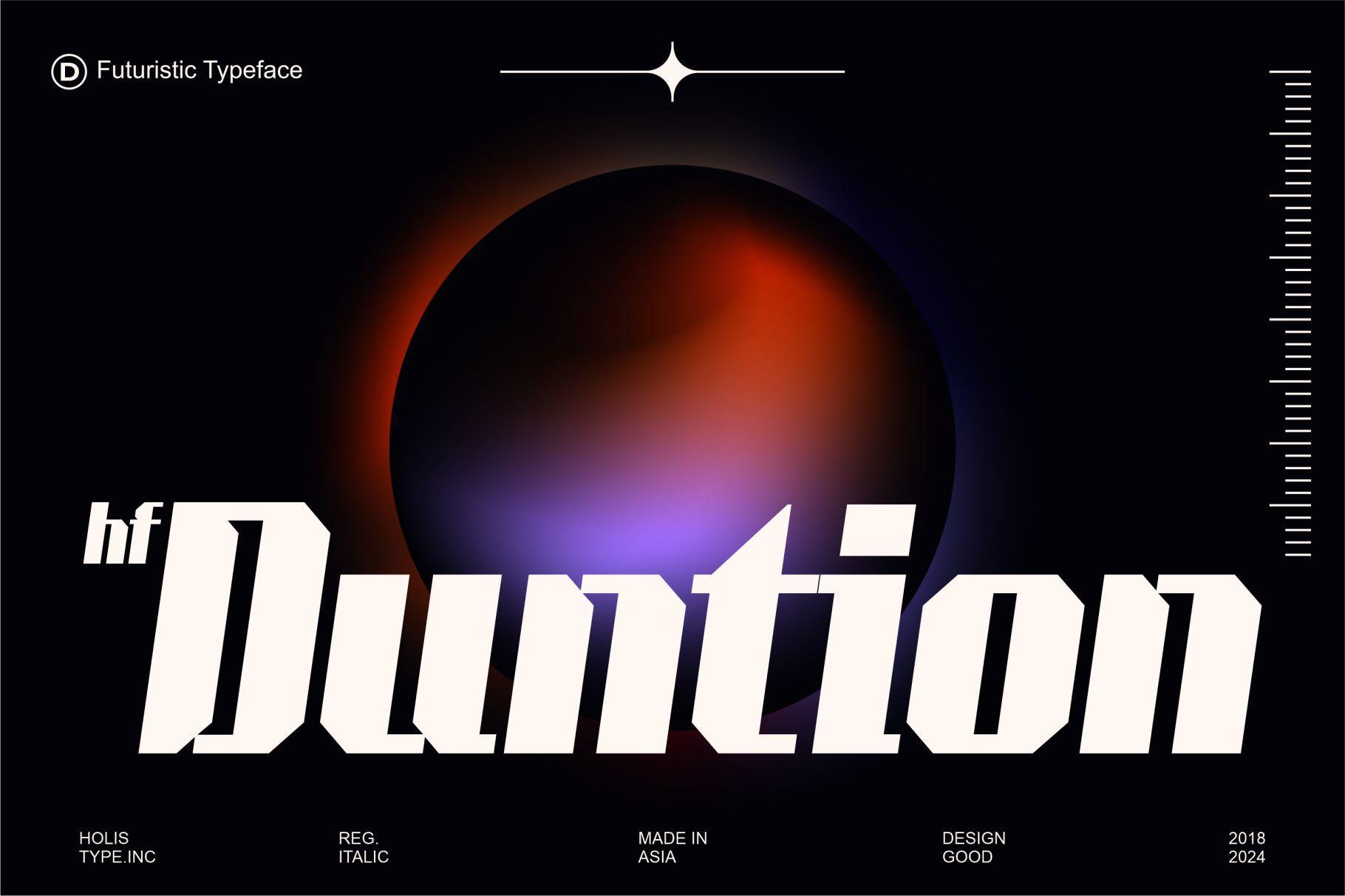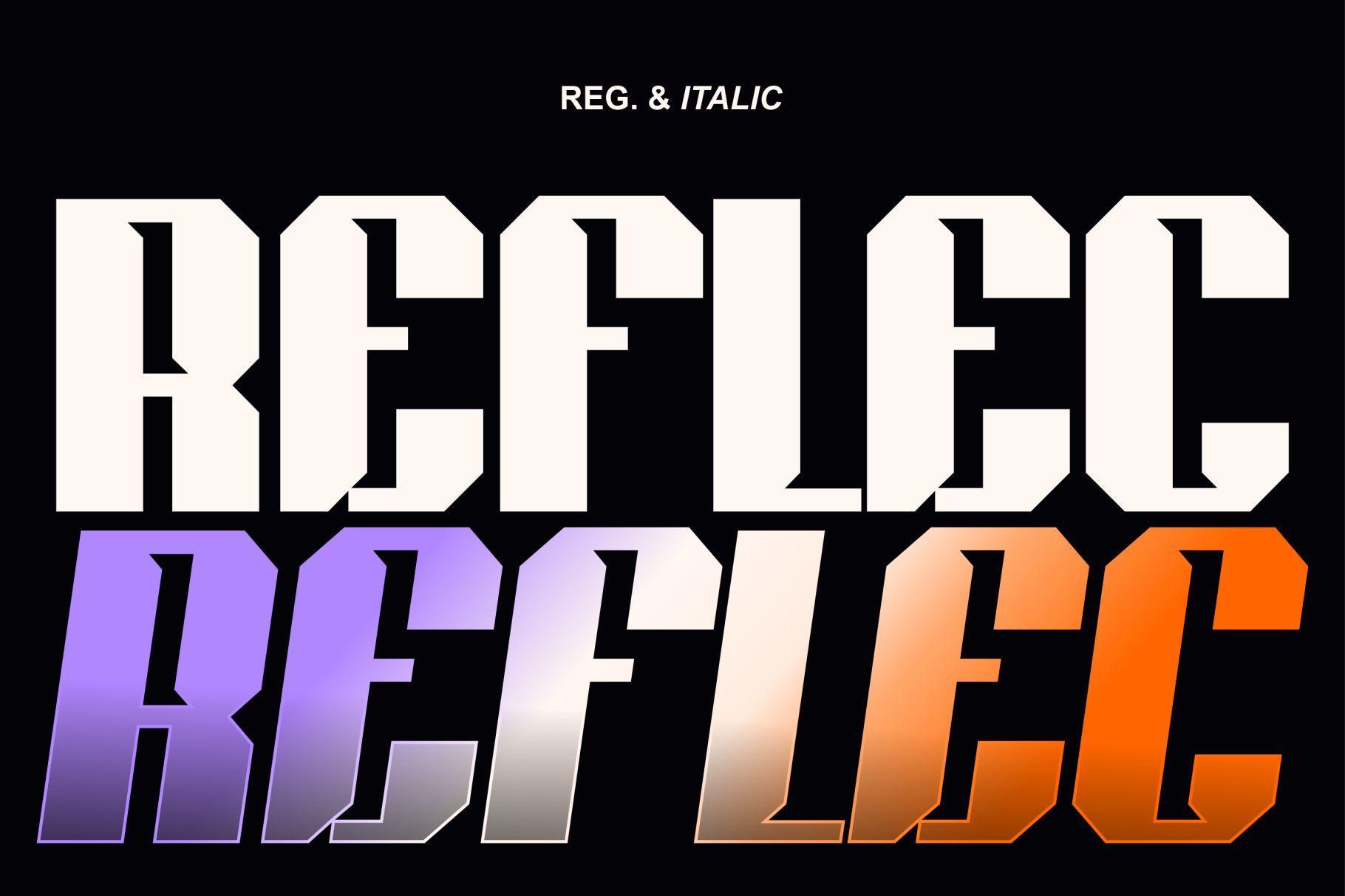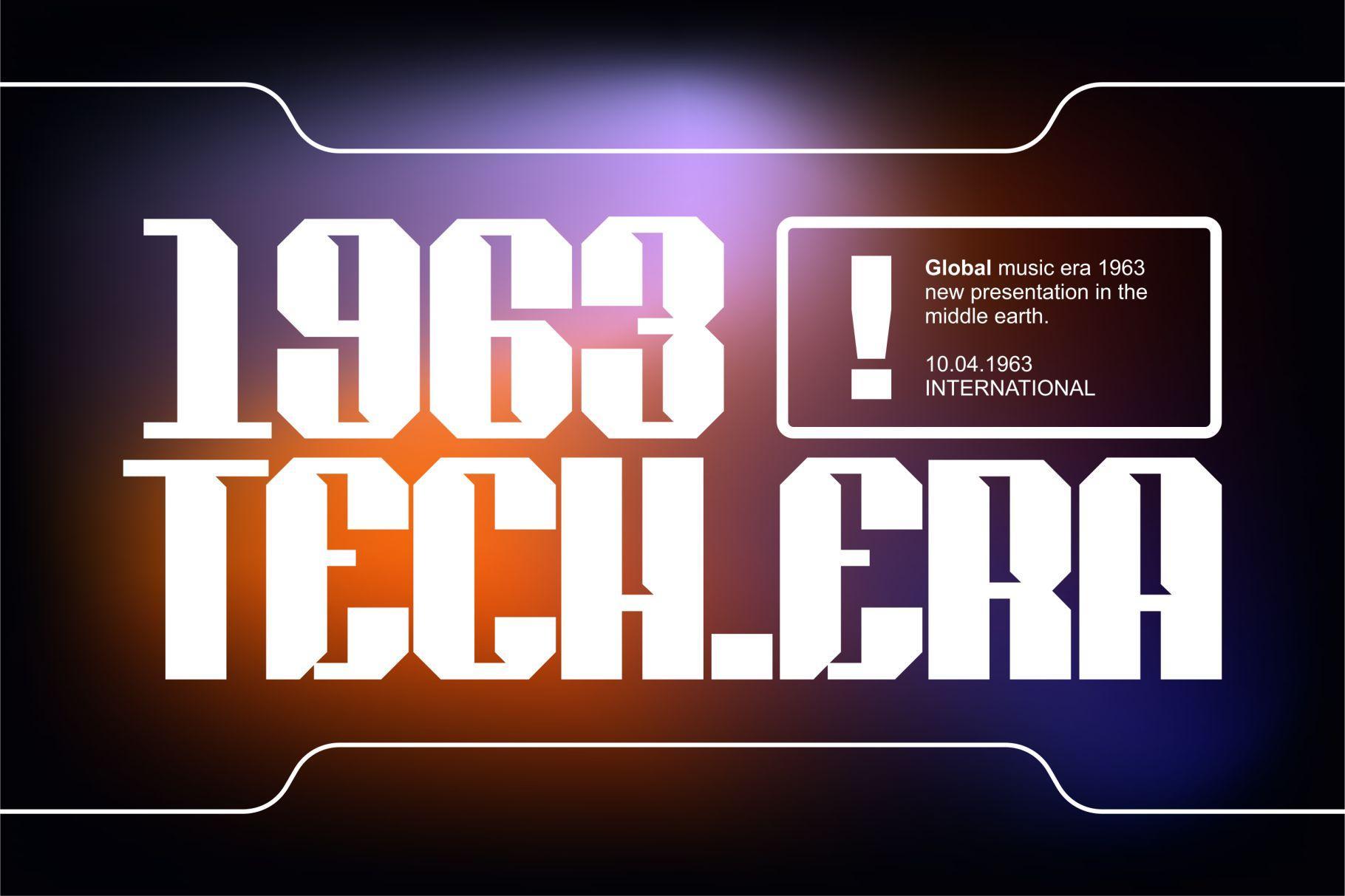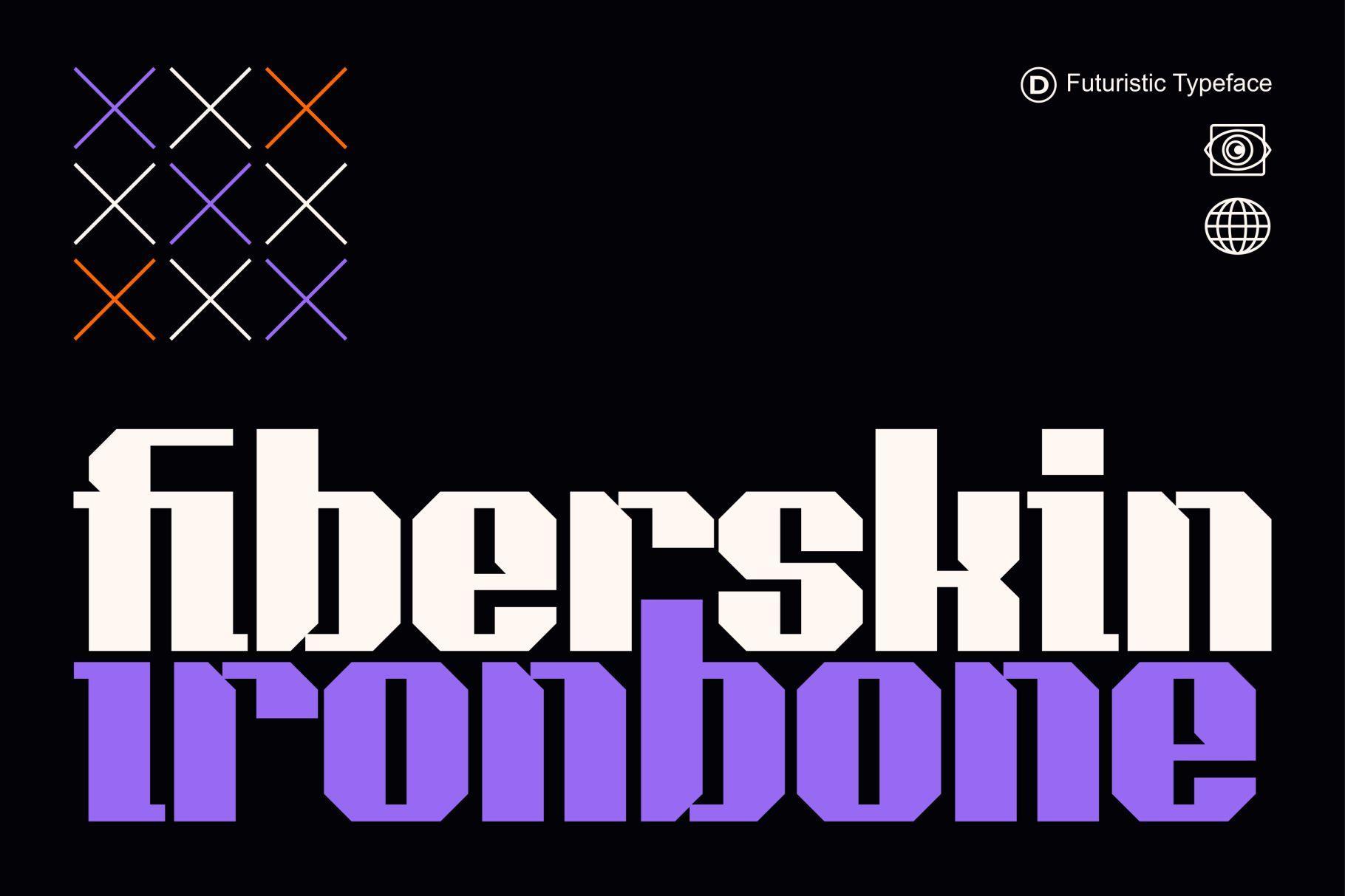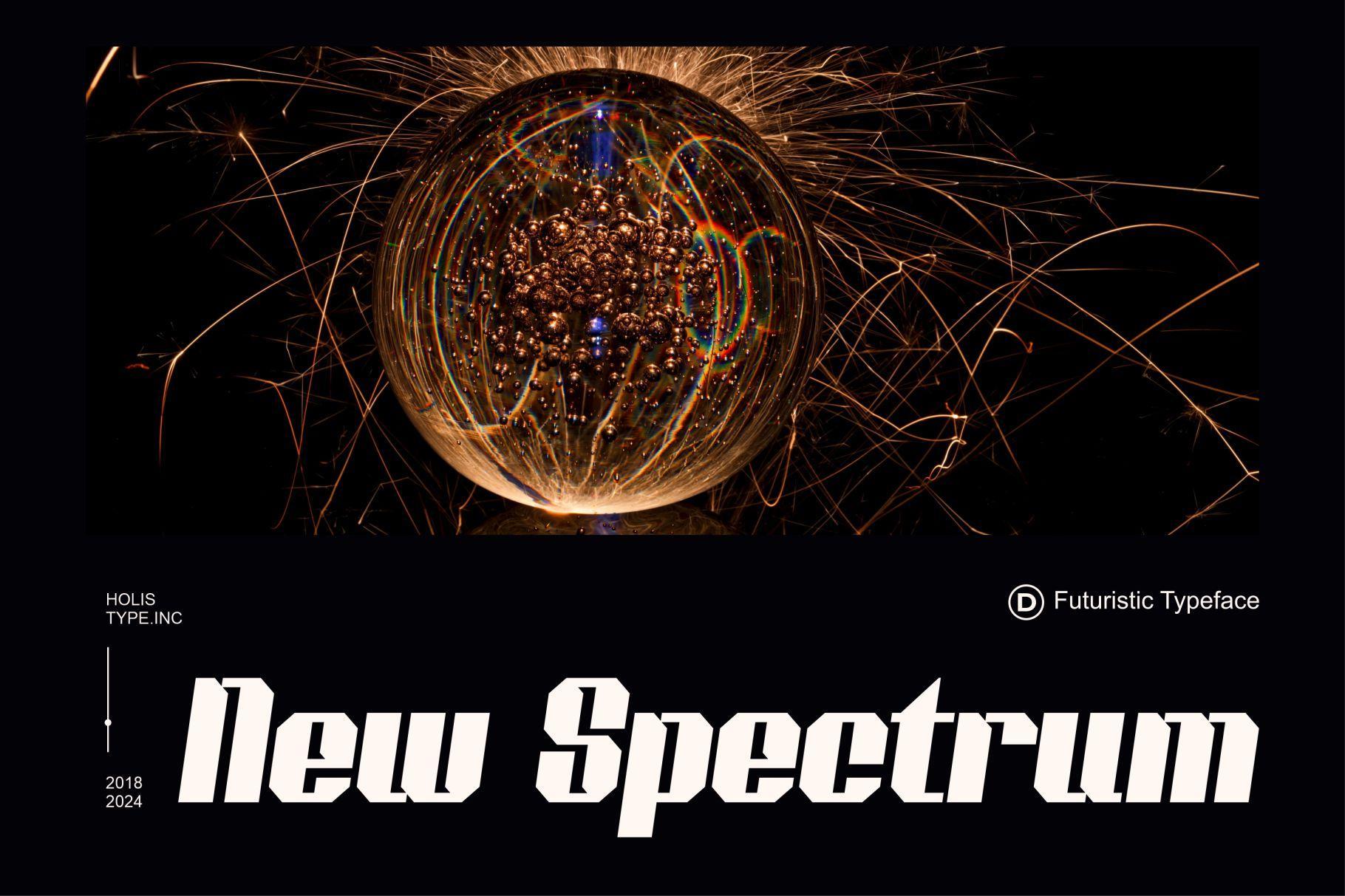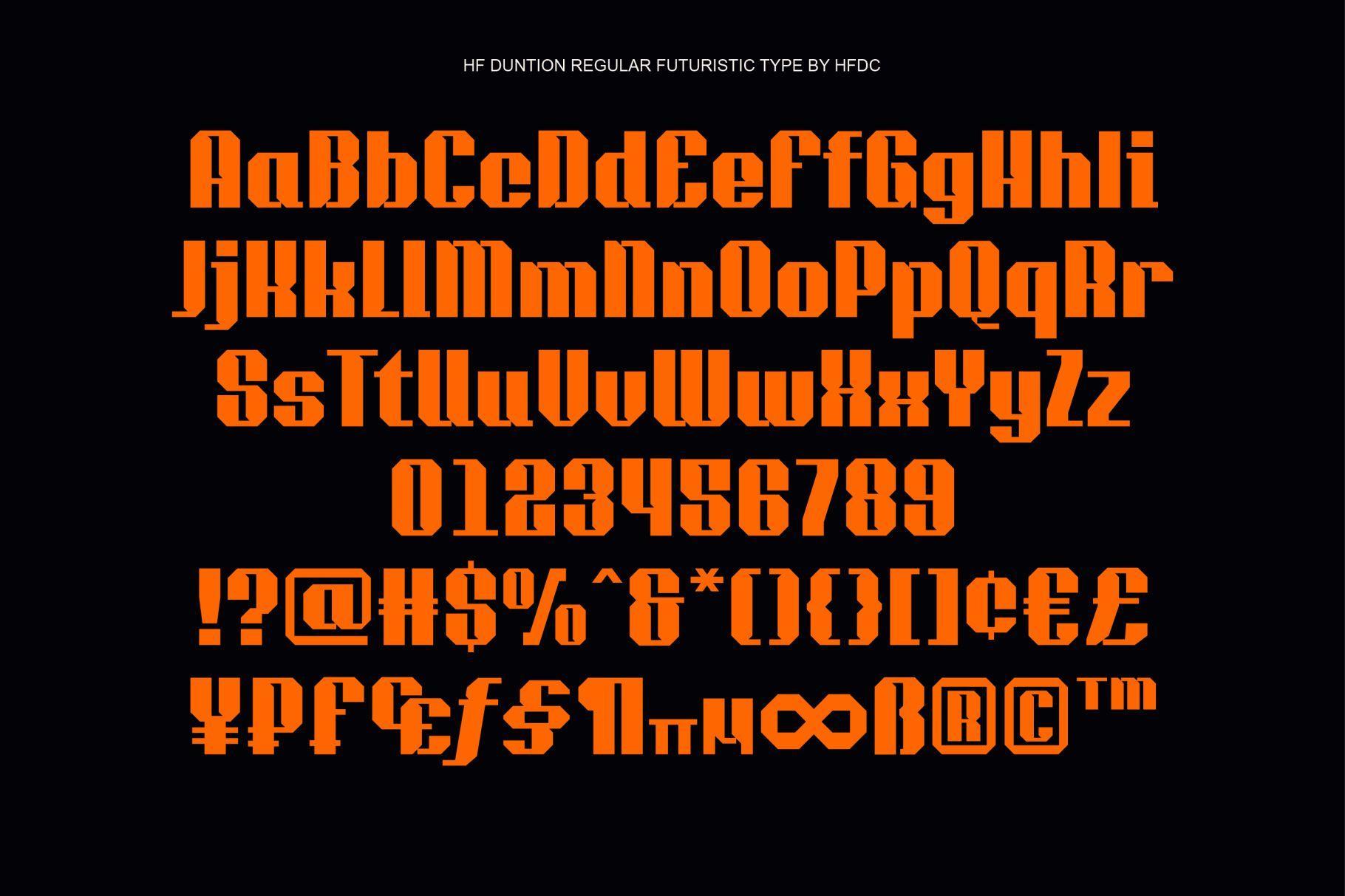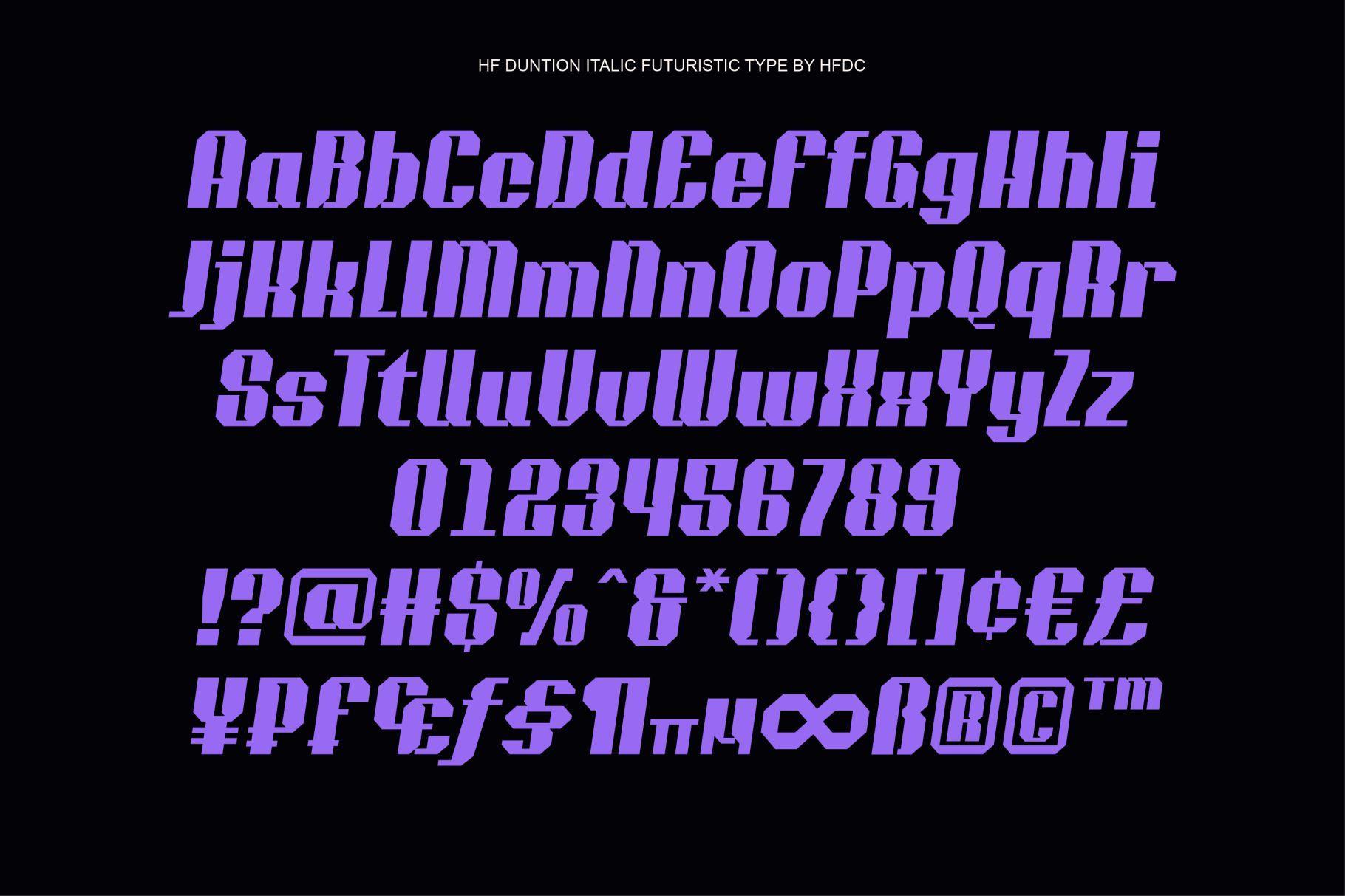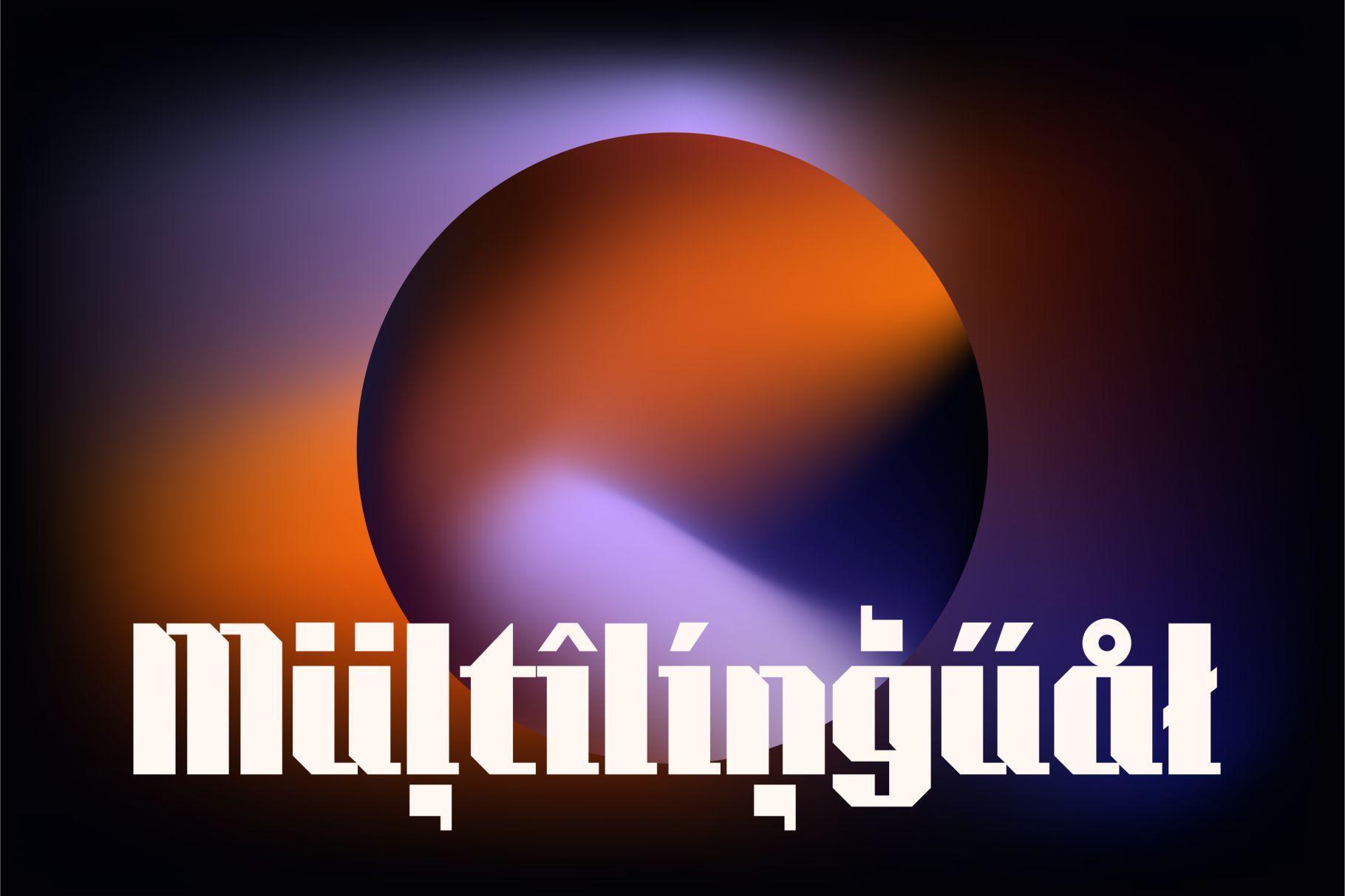
HF Duntion Futuristic Font
HF Duntion
The futuristic and bold typography has the spirit of welcoming the future, with a modern and sporty character, suitable for logo designs, posters, titles and any design with a futuristic style.
- Regular and Italic
- Uppercase
- Lowercase
- Punctuation
- Numeral
- Symbol
- Standard ligatures